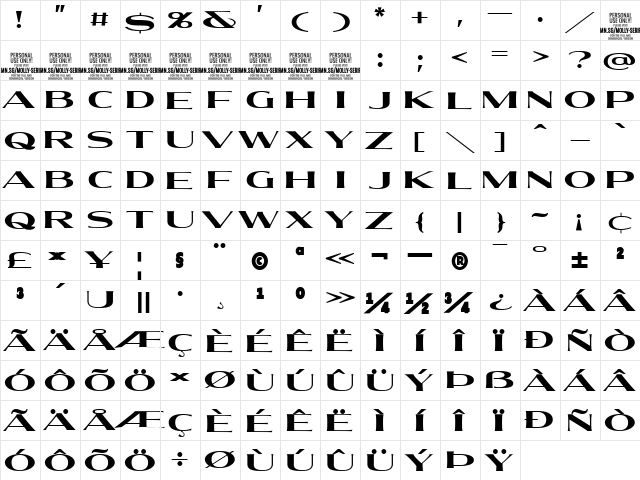
Molly Serif XE PERSONAL Bold
| Foundry | Mans Greback |
| Designer | Mans Greback |
Design Context for Molly Serif XE PERSONAL Typeface
Molly Serif XE PERSONAL brings classic typographic sensibility to the table — its serifs and measured letterforms reflect centuries of print heritage. Its bold stroke weight gives it real presence on the page.